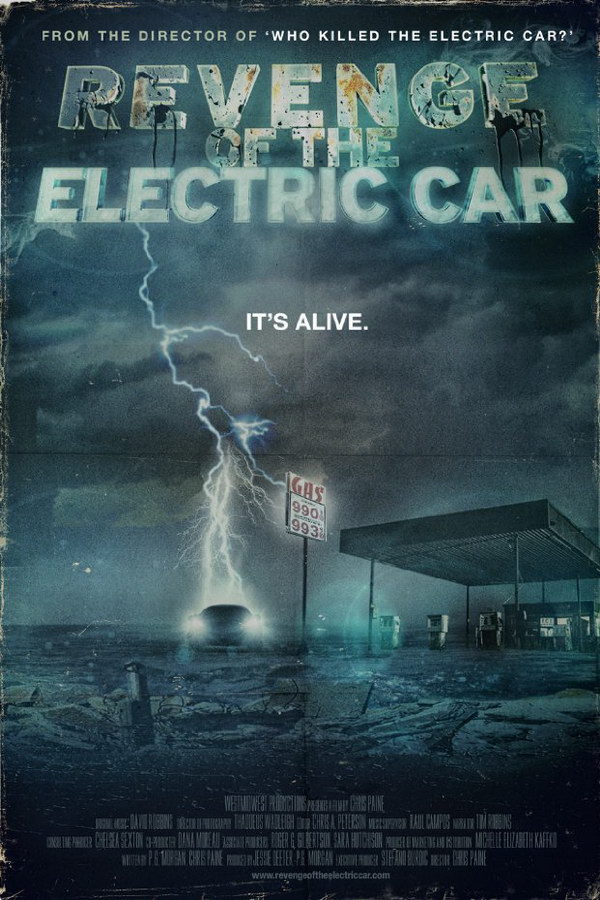
Revenge of the Electric Car Font
DocumentaryRevenge of the Electric Car is a documentary film that covers the development and resurgence of electric cars, specifically focusing on the development and production of the Tesla Roadster, the Nissan Leaf, and the Chevy Volt. The film was released in 2011 and was directed by Chris Paine.
The poster for the movie features a font called Interstate Black, created by Tobias Frere-Jones. It's a neo-grotesque sans-serif typeface inspired by the alphabets used in signage by the U.S. Federal Highway Administration. You can find more information about it here.